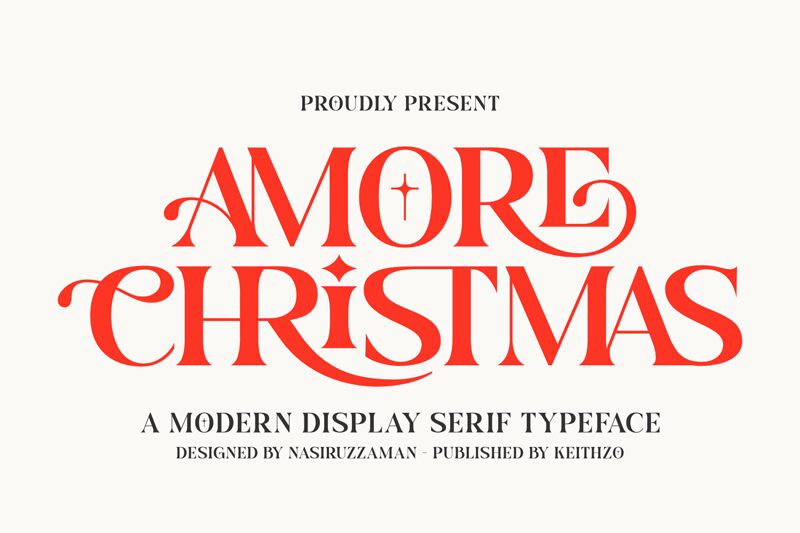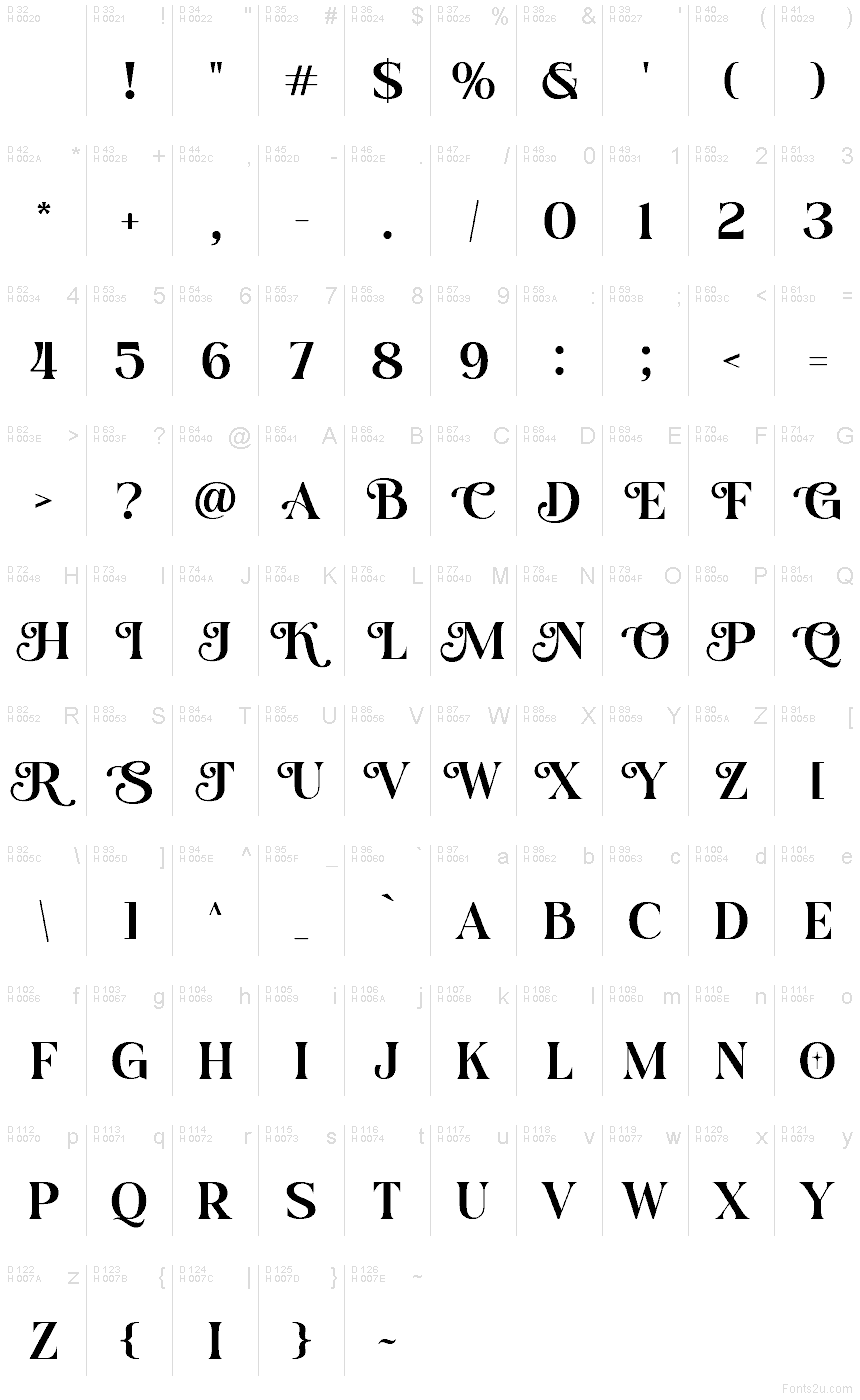
Amore Christmas
Amore Christmas font by Keithzo is a free holiday serif typeface that wraps your lettering in that cozy, storybook Christmas feeling. The tall, narrow letters feel like they’ve been brushed with inky strokes, with swooping curls and pointed tips that echo ribbons and icicles. Little details, like the ornament-style shapes nestled into the counters, give every word a gently decorative sparkle without making it unreadable.
Using Amore Christmas, you can bring warmth and drama to greeting cards, gift tags, party invitations, product packaging, social media posts, and festive headers. This free font shines at larger sizes, where its swirls and details can really breathe; pair it with a clean sans serif for body copy to keep layouts balanced and easy to read.